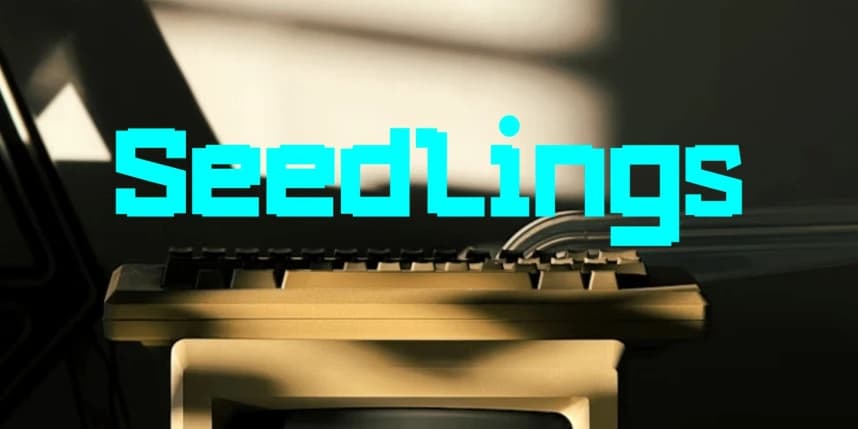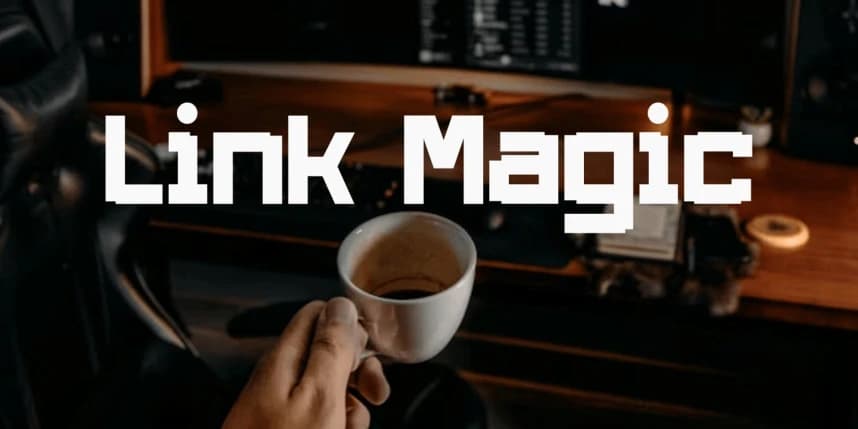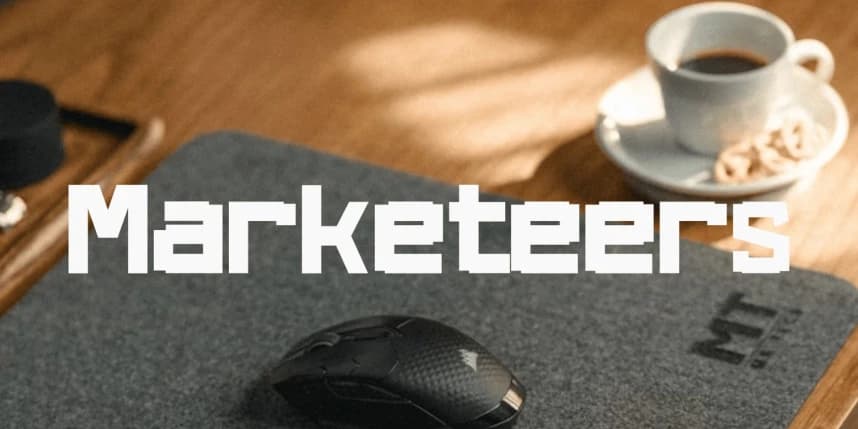
Link Magic Font is a font that blends futuristic elements with a touch of magic in every curve of its letters. Designed with clean yet distinctive lines, this typeface offers a modern impression without losing its unique, captivating character.